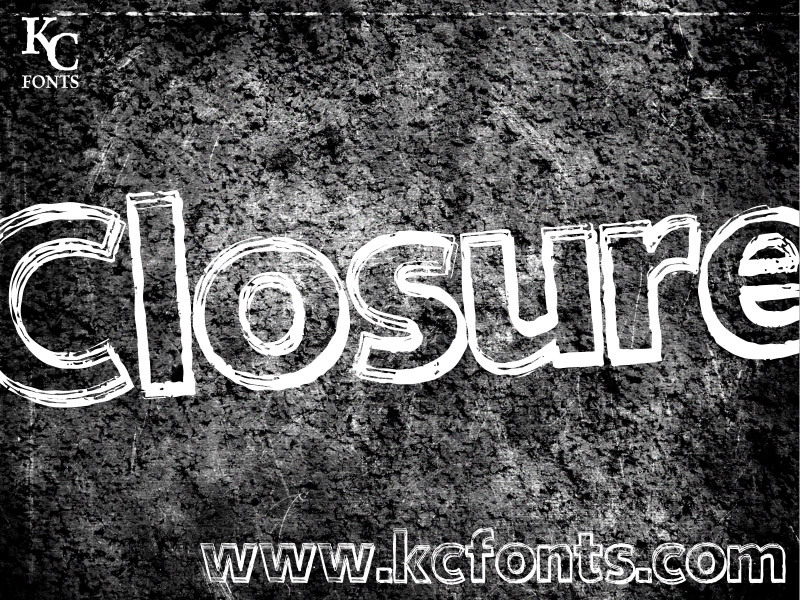
Closure by Kevin Christopher of KC Fonts is a free graffiti font with broad, forceful lettering and a loose marker-drawn finish. Several uneven contour lines run around the strokes, creating a restless sketchbook texture that feels closer to a worked-up tag than a clean digital outline.
Its street-lettering roots make it well suited to music posters, skate merchandise, and event graphics with an urban or DIY direction. The repeated outlines can become part of the wider artwork on album covers or apparel, echoing spray-painted borders, hand-drawn frames, and layered illustration rather than serving as neutral text.